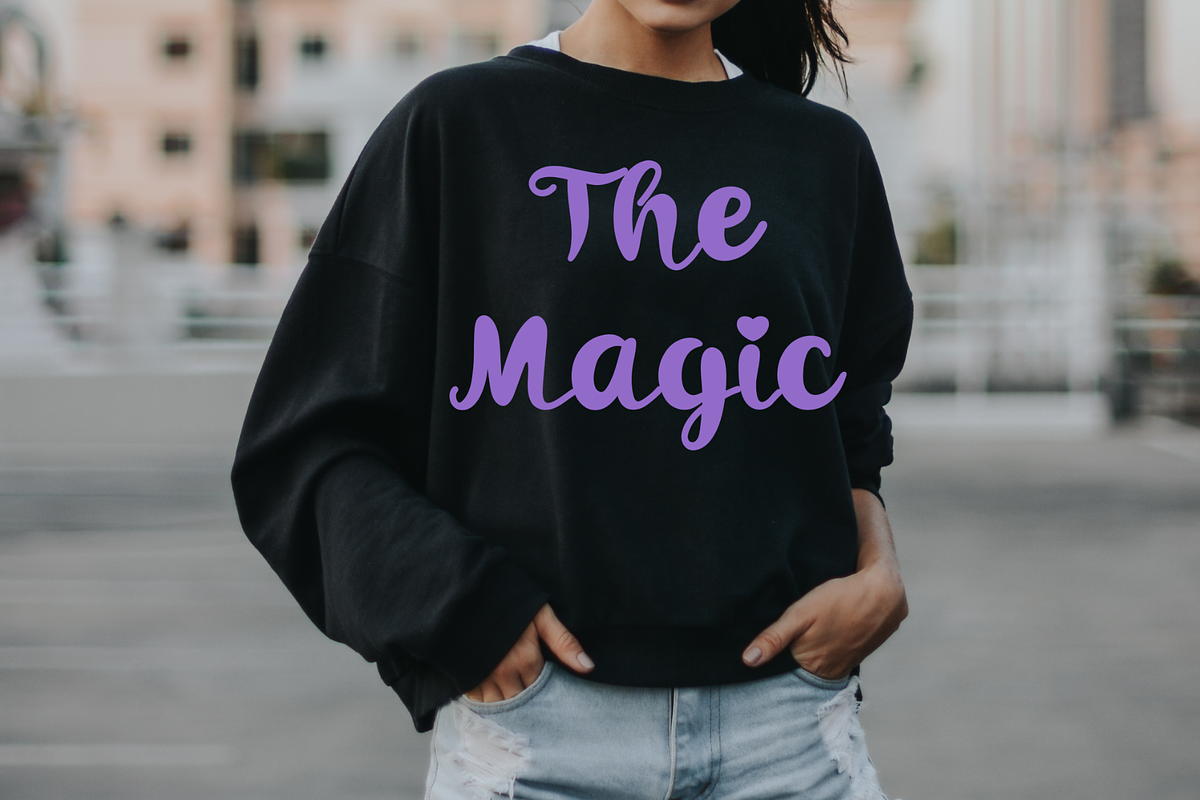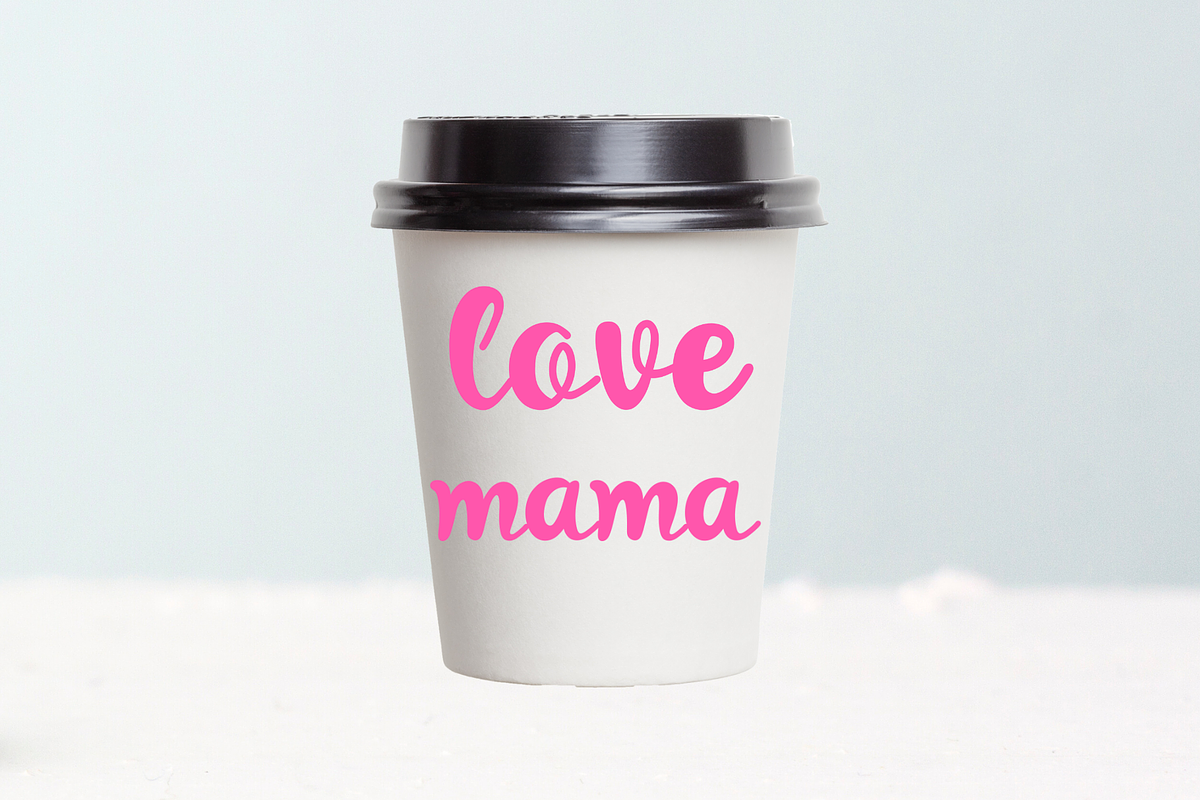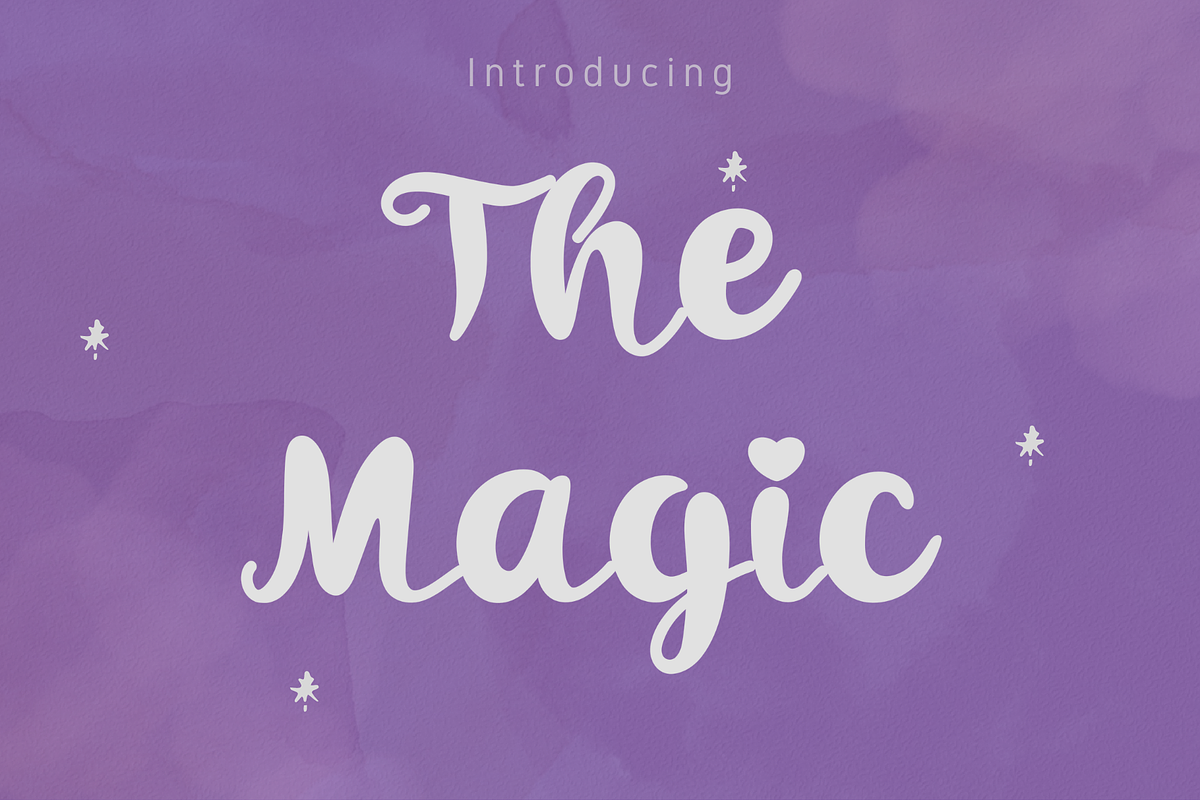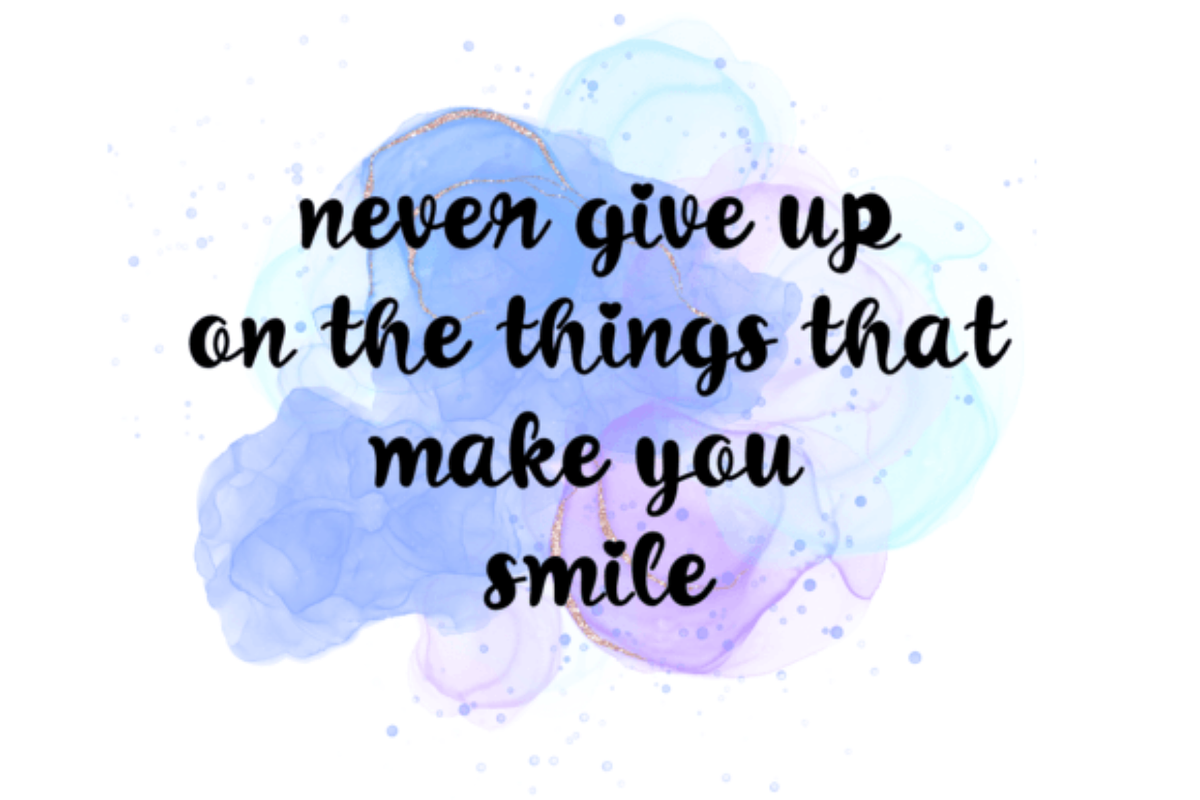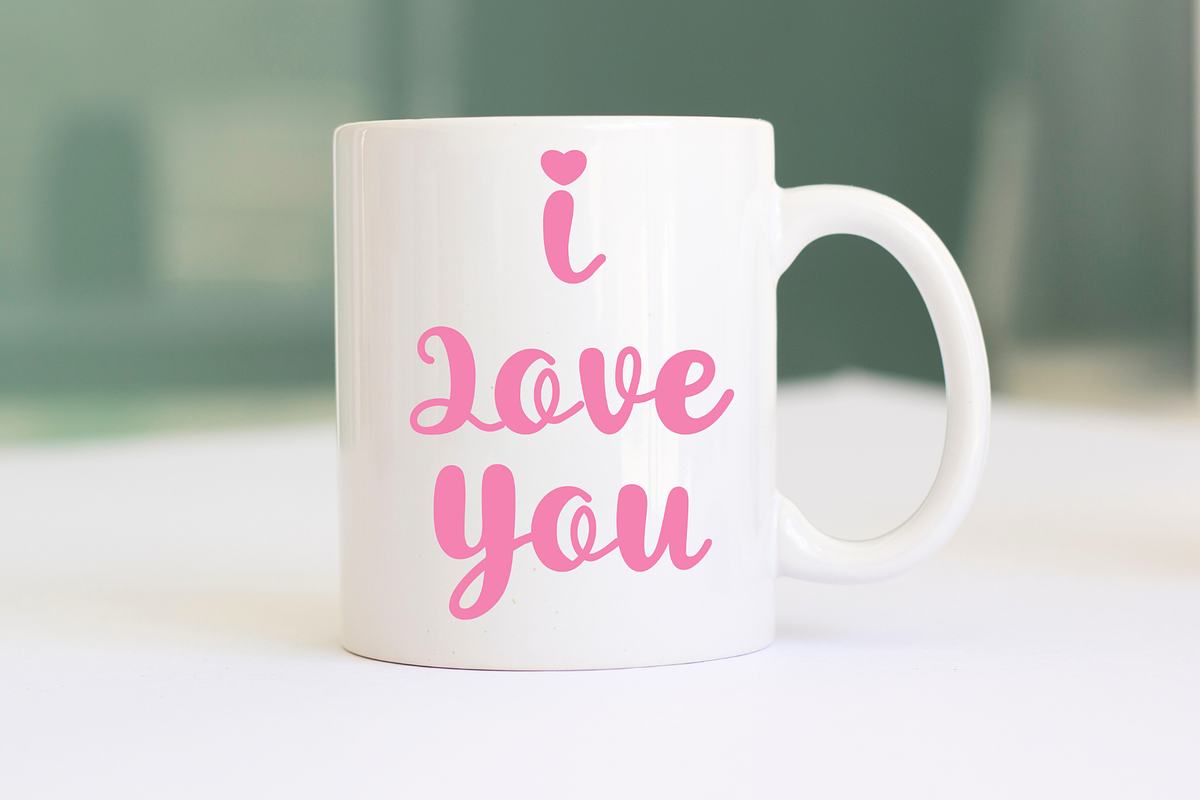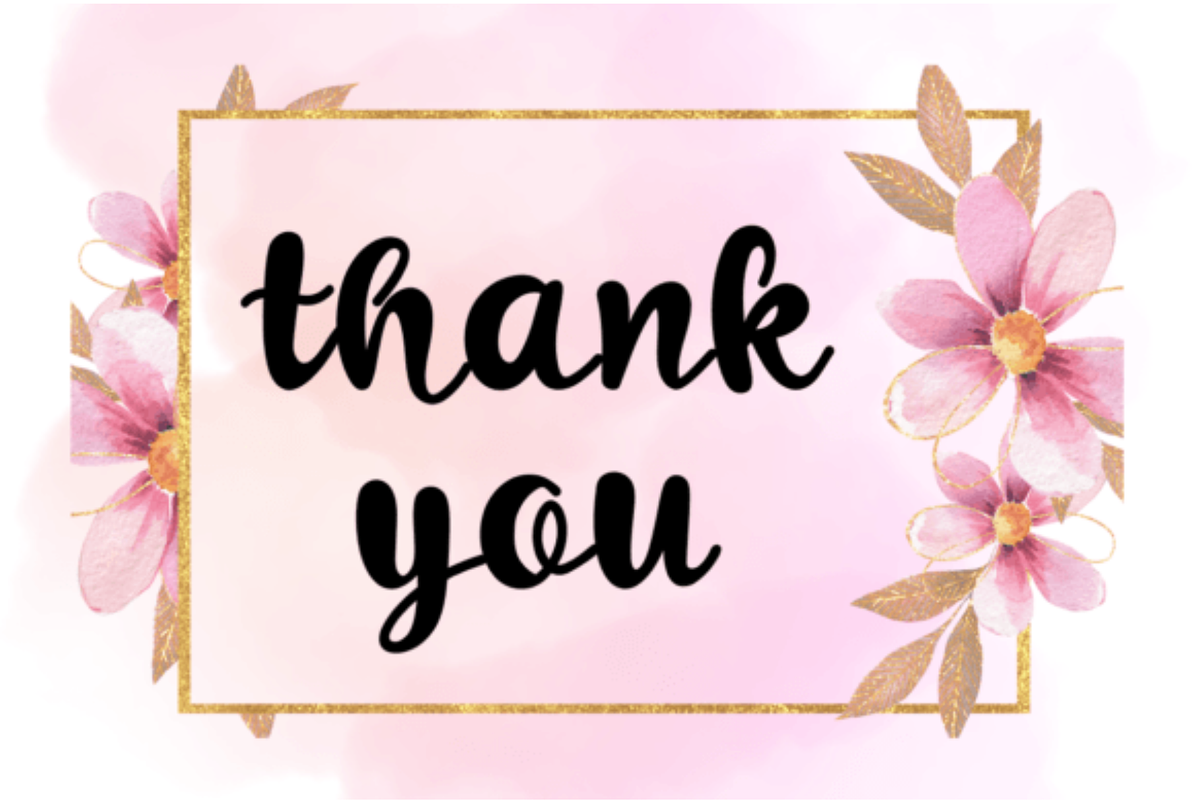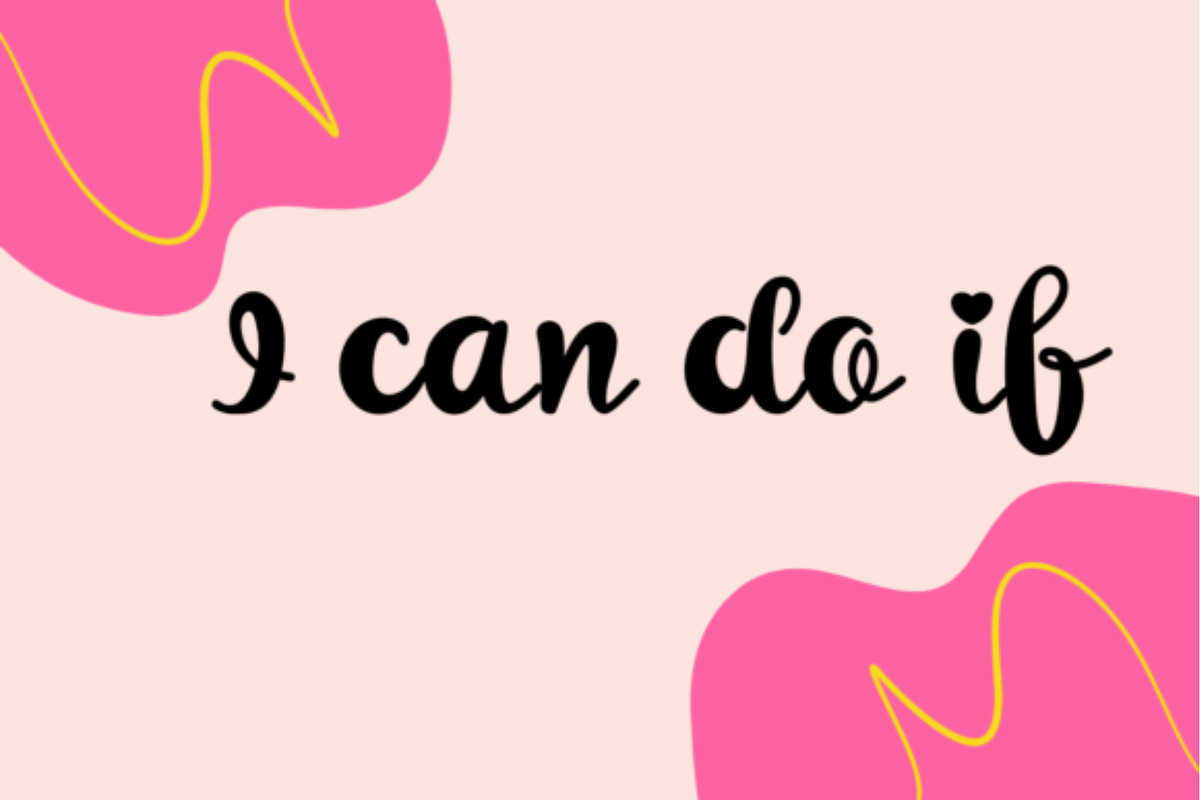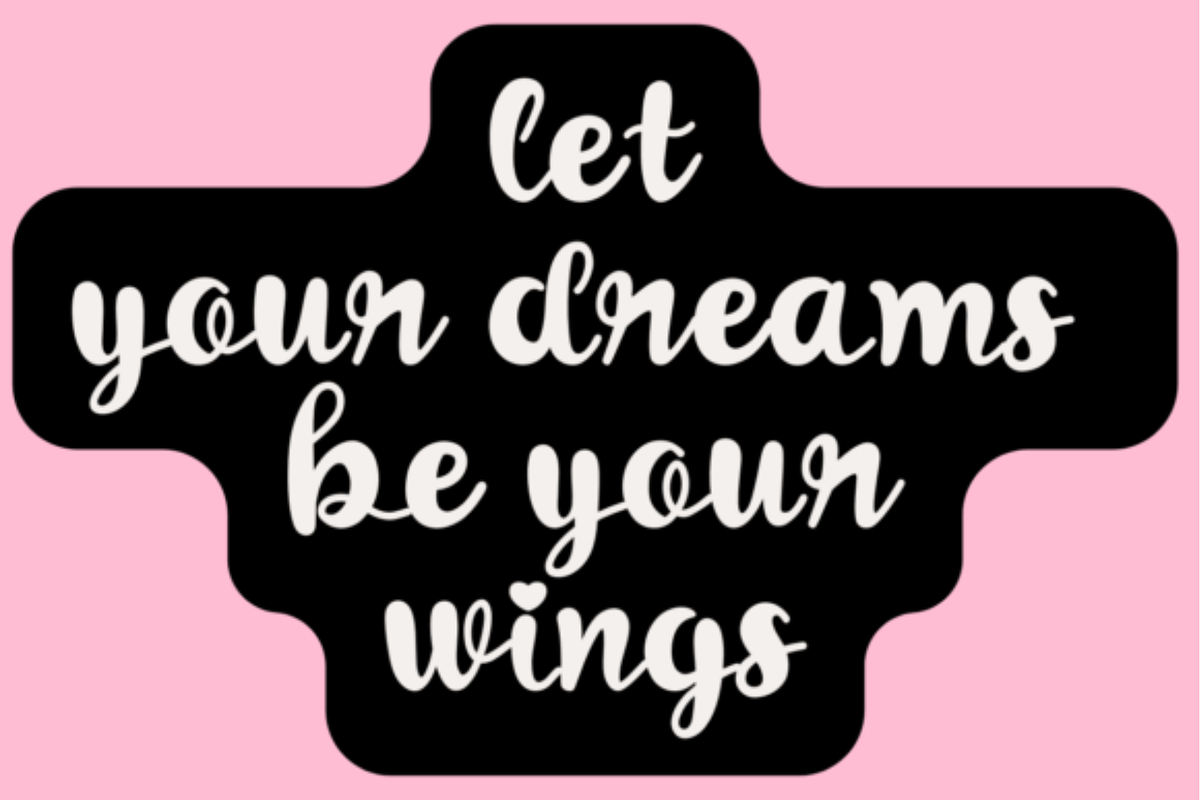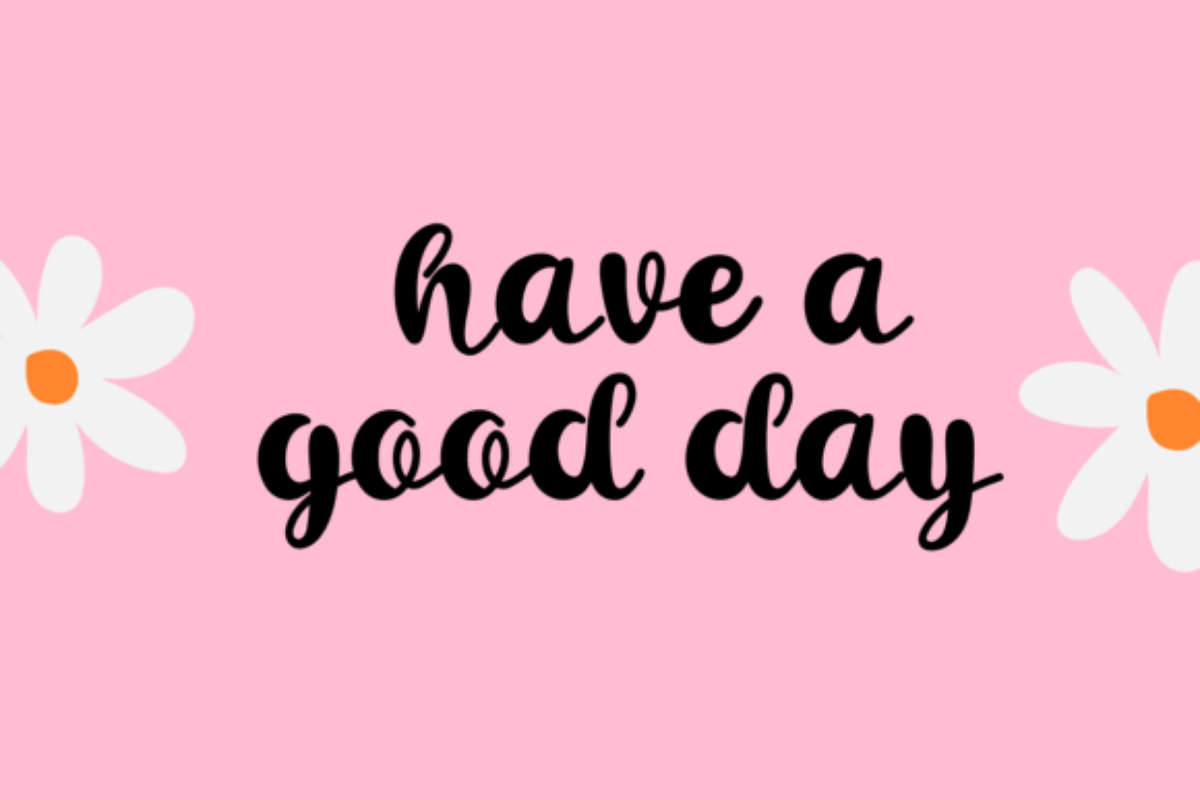
The Magic Font
The Magic is a cute and groovy handwritten display font suitable for designing T-shirts, tote bags, hats, stickers, wedding invitations, logos, cards, quotes, and more! Groovy will make any creative idea stand out and stunning!